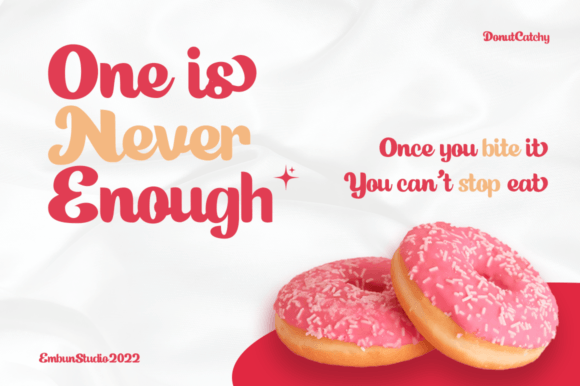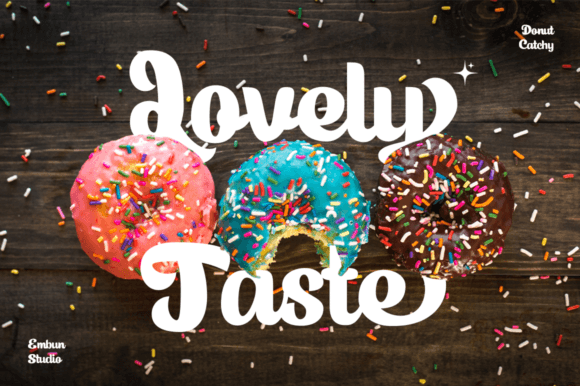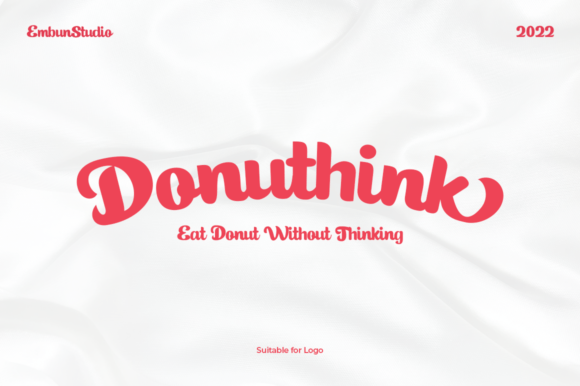
Introduction to Donut Catchy Font
Donut Catchy feels equally charming and elegant.
This stunning script font is a stylish homage to classic calligraphy It will elevate a wide range of design projects to the highest level, be it branding, headings, wedding designs, invitations, signatures, logos, labels, and much more.
Key Features of Donut Catchy Font
Why Choose Donut Catchy Font?